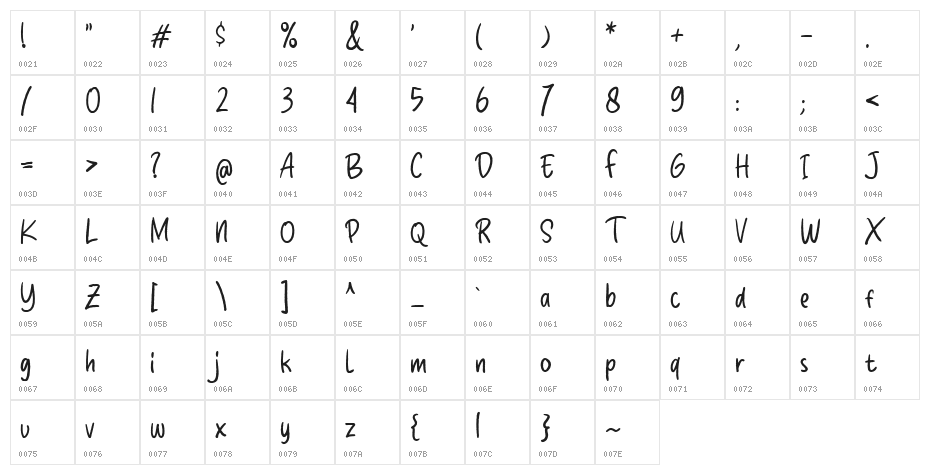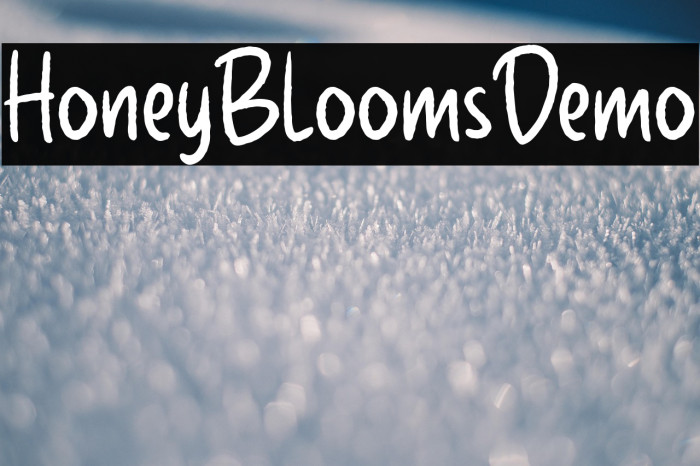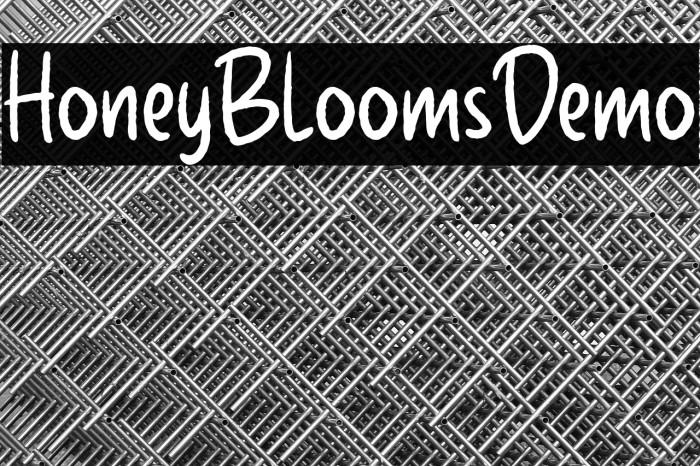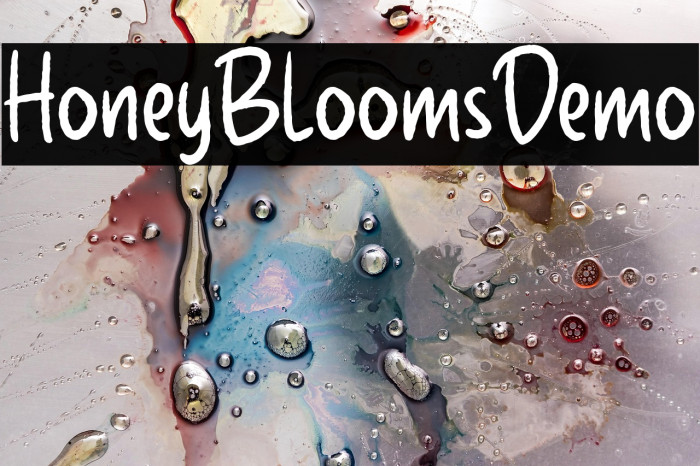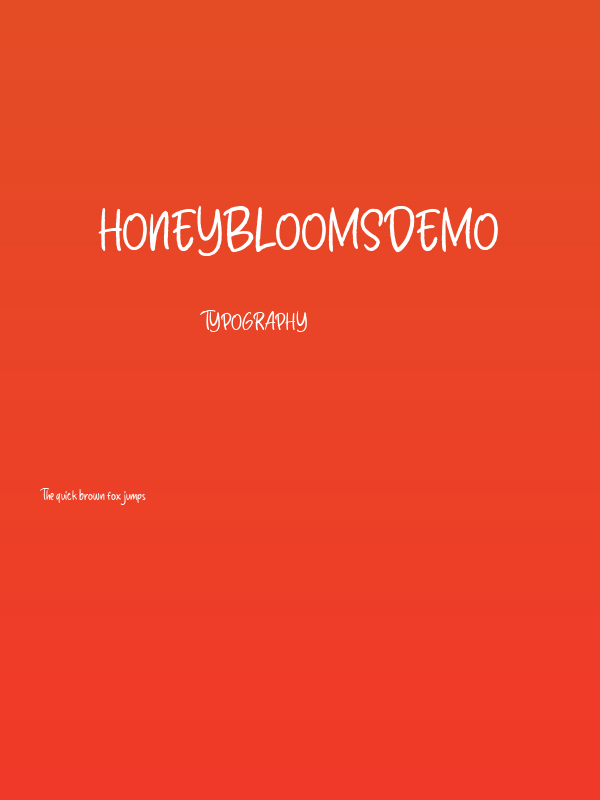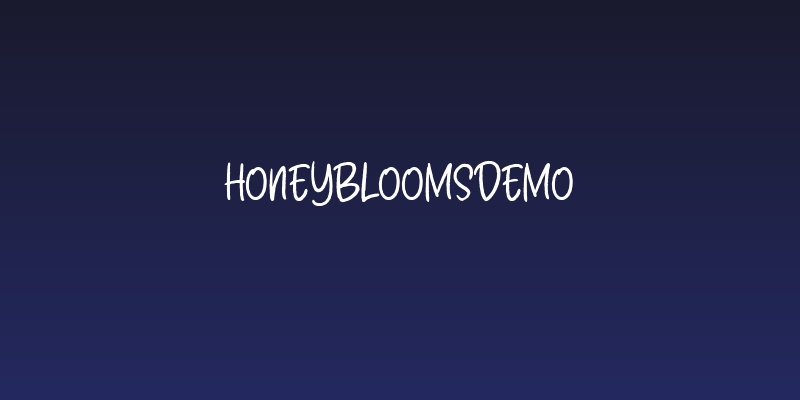
HoneyBloomsDemo Font
HoneyBloomsDemo Description
This font exudes a playful and casual handwritten style, characterized by its smooth, flowing curves and slightly irregular letterforms. The strokes are consistent in width, giving it a uniform appearance while maintaining a natural, hand-drawn feel. The uppercase and lowercase letters are well-balanced, with a slight slant that adds to its informal charm. Numbers and special characters are crafted with the same attention to detail, ensuring readability and aesthetic appeal. This font is perfect for projects that require a personal touch, such as greeting cards, invitations, or creative branding.
| Proposed Projects | Ideal for greeting cards, invitations, creative branding, and personal projects. |